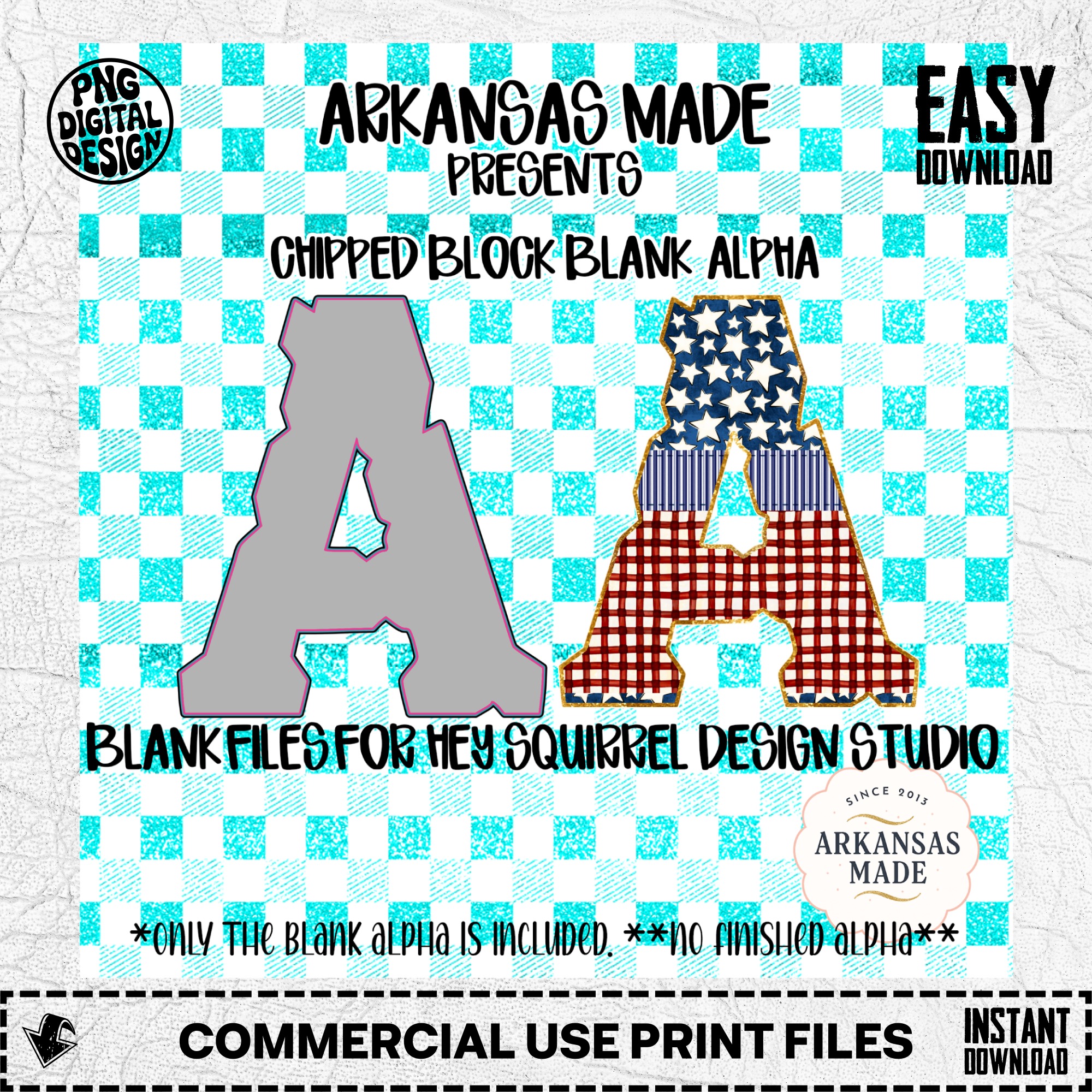
Unlock endless creativity with this Chipped Block Blank Alpha PNGs pack, specifically designed for Hey Squirrel Design Studio users. Perfect for custom designs! This versatile digital download offers a rugged, distressed block lettering style, ready for your unique patterns and textures. Ideal for digital designers, crafters, and small business owners creating personalized apparel, home decor, or digital art. Elevate your sublimation, DTG, or vinyl projects with these foundational blank files, making a thoughtful resource for any creative entrepreneur.